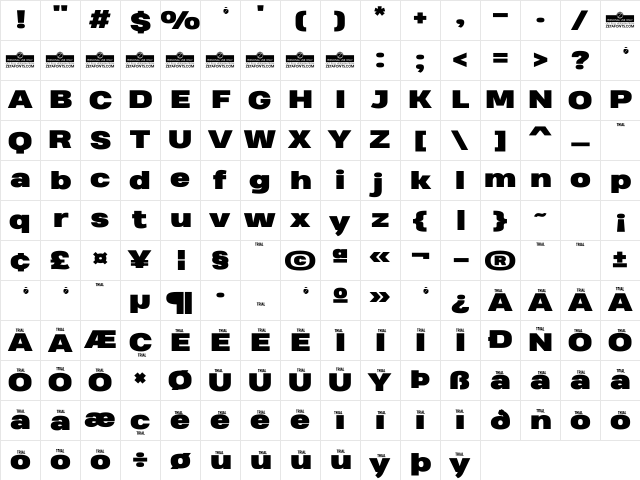
Heading Pro Wide Trial Black Free Font
Heading Pro Wide Trial Black
Foundry: Studio Kmzero & Zetafonts
Designer: Francesco Canovaro
Design Context for Heading Pro Wide Trial
Heading Pro Wide Trial is a composed and adaptable typeface that performs quietly and consistently across a wide range of design contexts.